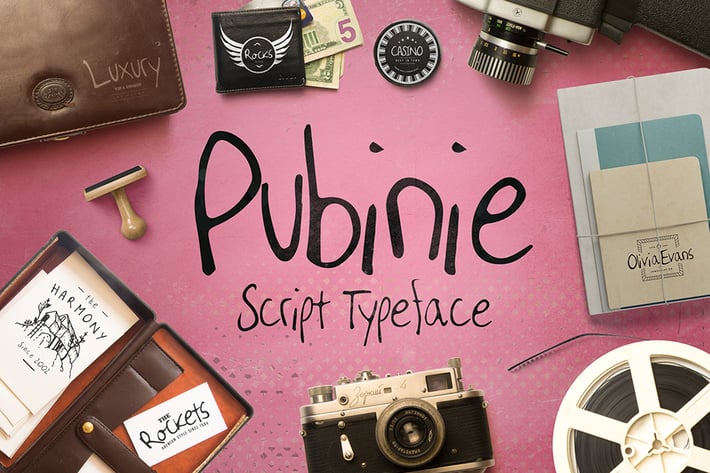
Pubinie Script Typeface
SmartDesigns_eu
The font is created very delicately and uses thin lines. Because of this the font feels very clean and neat, but it still has a playful hand-crafted feeling to it.